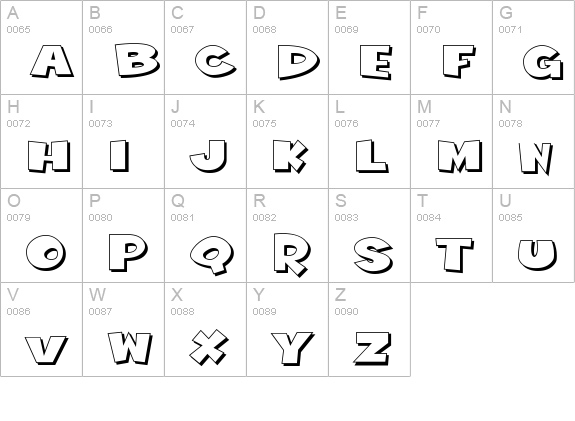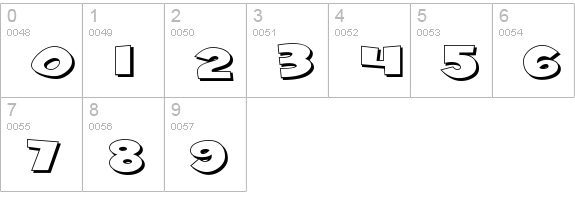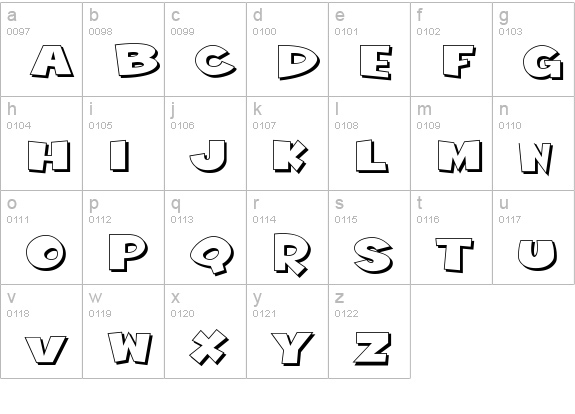
Wild Ketchup BTN Outline Shadow Font Details
Introducing the captivating Wild Ketchup BTN Outline Shadow font, a stunning typeface that will make your designs come alive with its wild and playful charm. This font embodies a unique blend of boldness and elegance, perfect for adding a touch of excitement to any project. With its dynamic and eye-catching outline shadow effect, Wild Ketchup BTN demands attention and effortlessly stands out from the crowd. Whether you're designing logos, posters, or social media graphics, this font will infuse your creations with a sense of adventure and energy. One of the best things about Wild Ketchup BTN Outline Shadow font is that it is absolutely free! You read that right – you can download this extraordinary font without spending a dime. Simply head over to FontsMarket.com and easily access this amazing typeface to enhance your designs. The versatility of Wild Ketchup BTN allows it to be used across a wide range of design projects. Its clean lines and distinctive shadow effect make it an ideal choice for branding, packaging, headlines, and more. The boldness of this font ensures that your message will be conveyed with impact and clarity. So why wait? Unleash your creativity and add a touch of wildness to your designs with Wild Ketchup BTN Outline Shadow font. Download it freely at FontsMarket.com and let its playful yet elegant nature bring your vision to life. Get ready to make a statement that won't be forgotten.